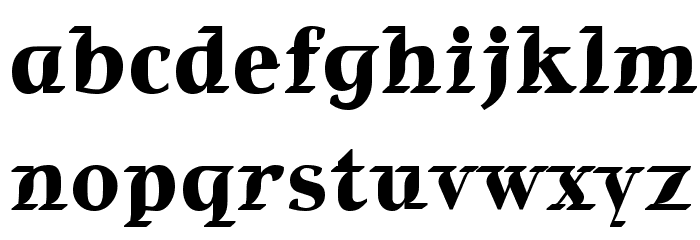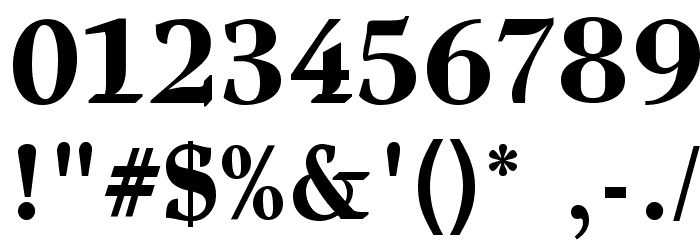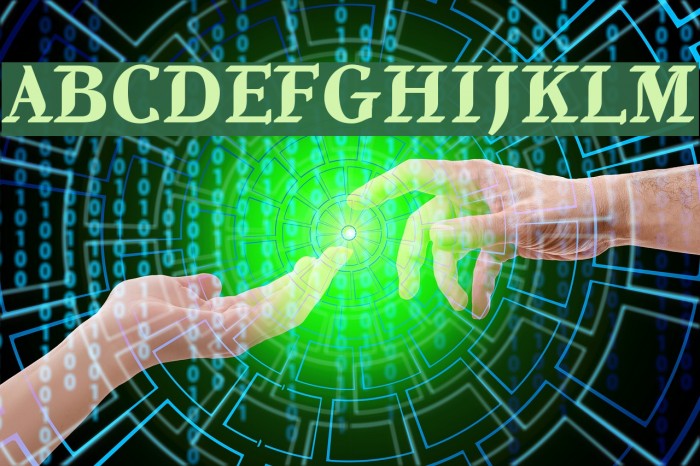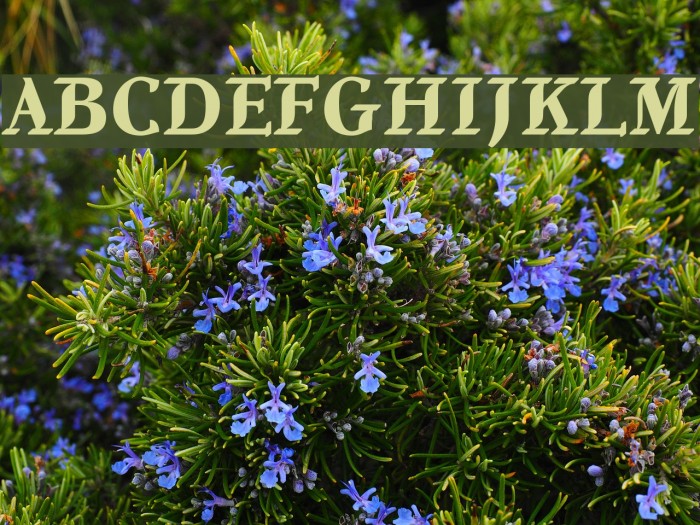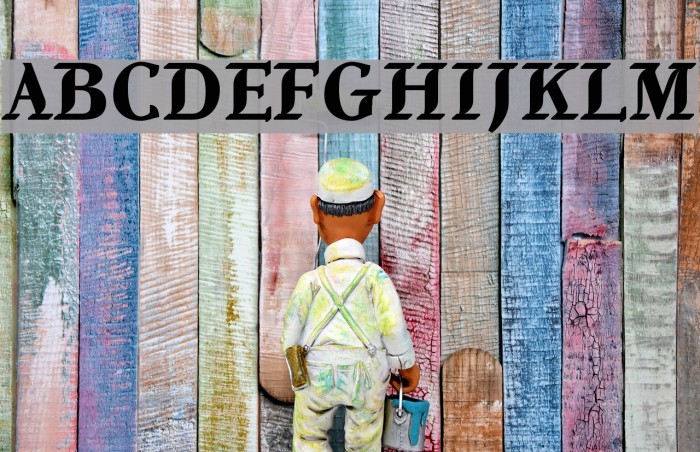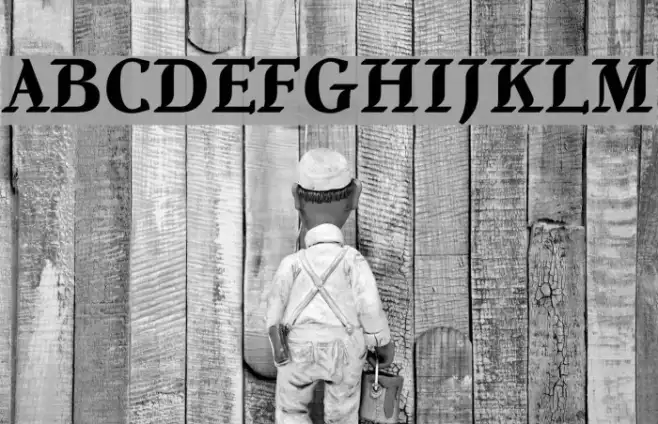
EdnnaUT Bold Font
This font features a bold and dynamic serif style with a strong presence. The characters exhibit a slight slant, adding a sense of movement and elegance. The serifs are pronounced and sharp, contributing to a classic yet modern look. The uppercase letters are robust and commanding, while the lowercase letters maintain a consistent weight and structure. Numerals are bold and clear, ensuring readability. Special characters are well-defined, matching the overall aesthetic of the font. This typeface is suitable for projects that require a bold and impactful statement.
A bold serif font with a dynamic slant and strong presence.
- Proposed Projects: Ideal for headlines, branding, posters, and editorial design.